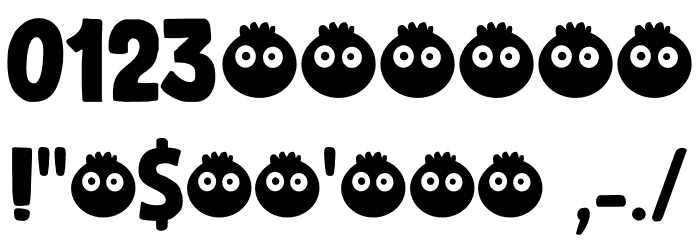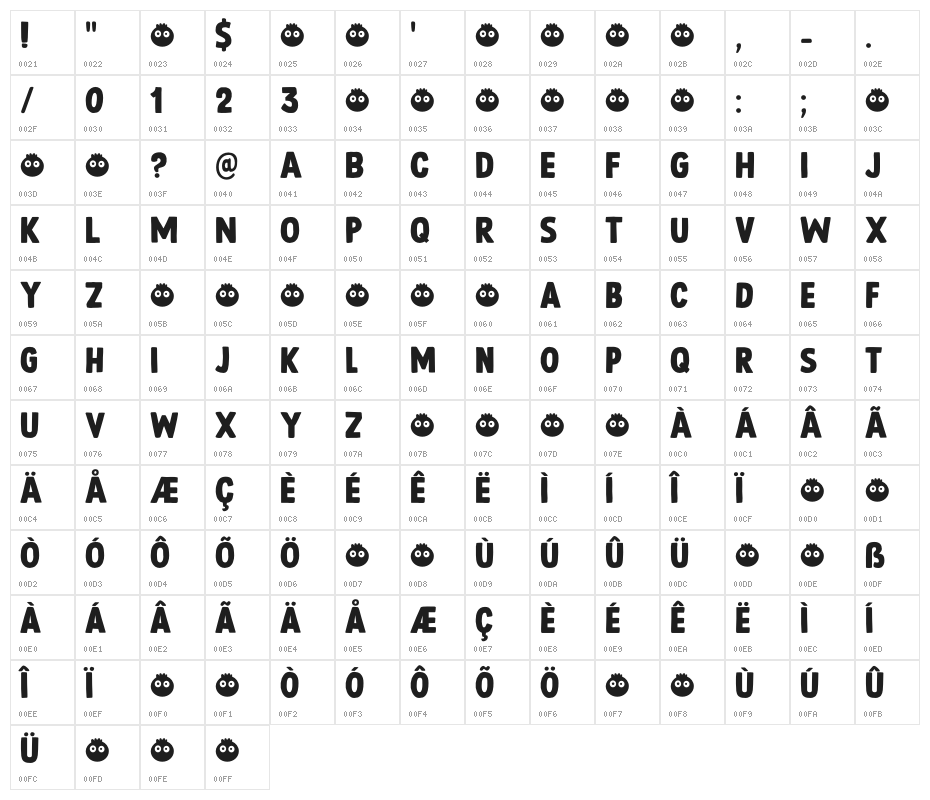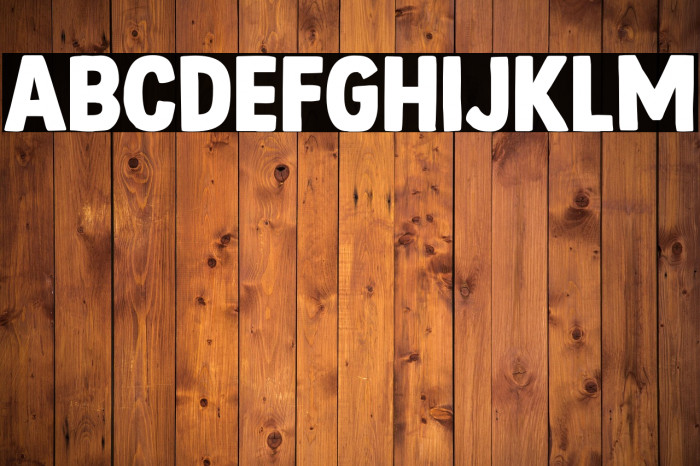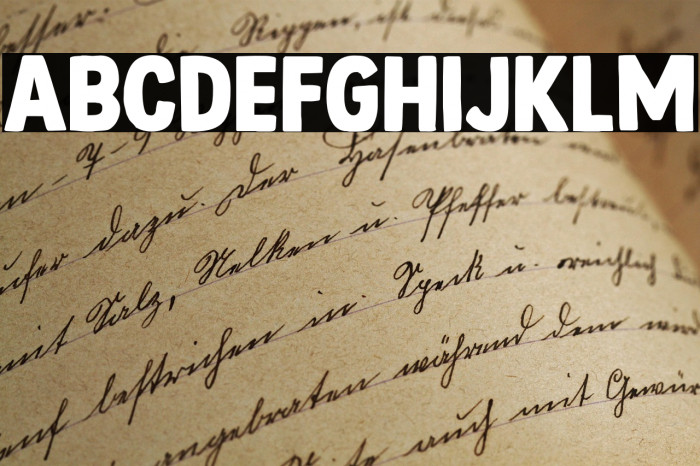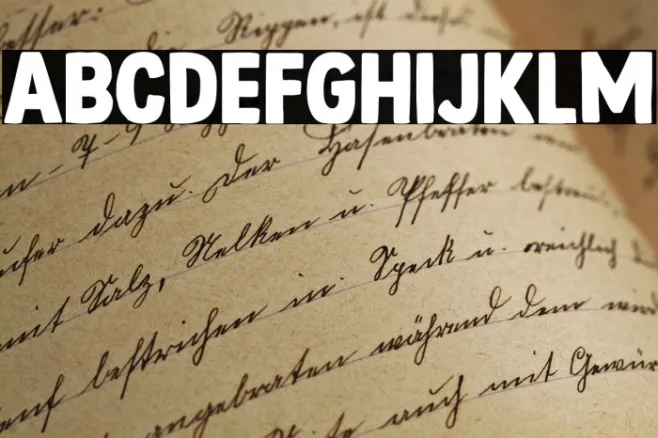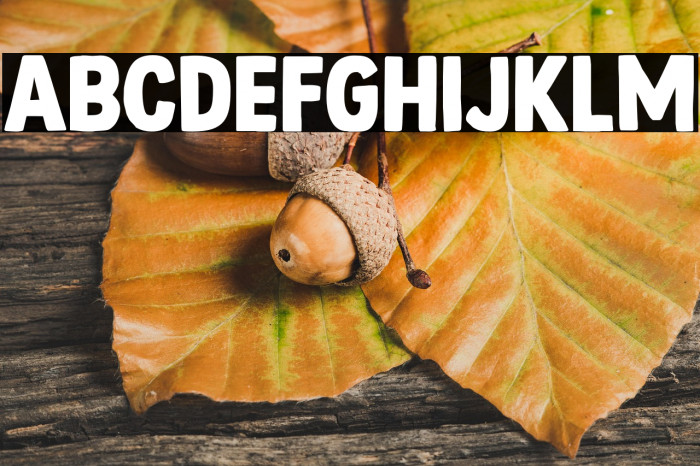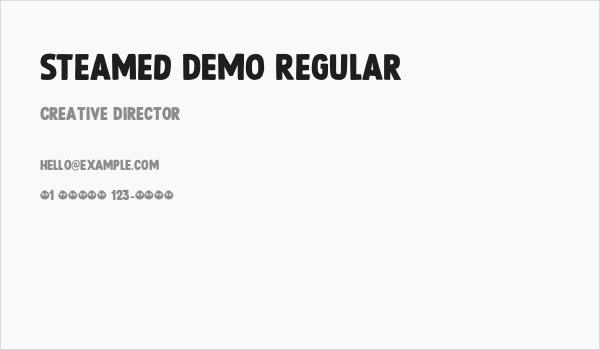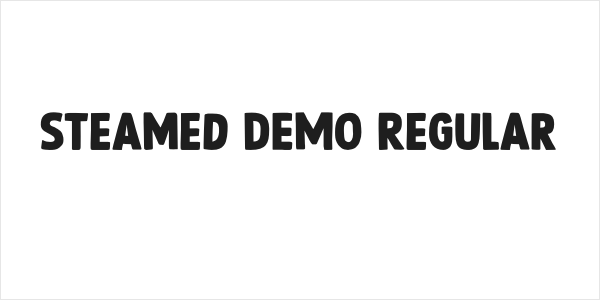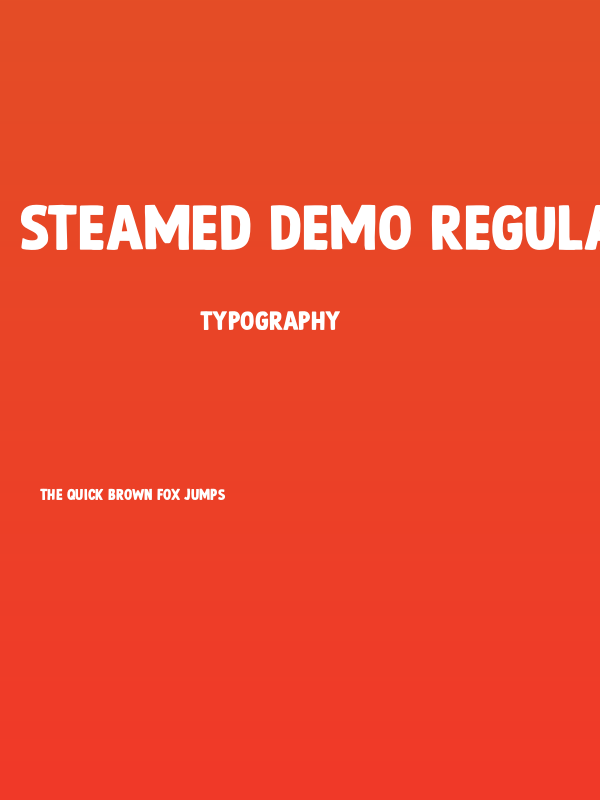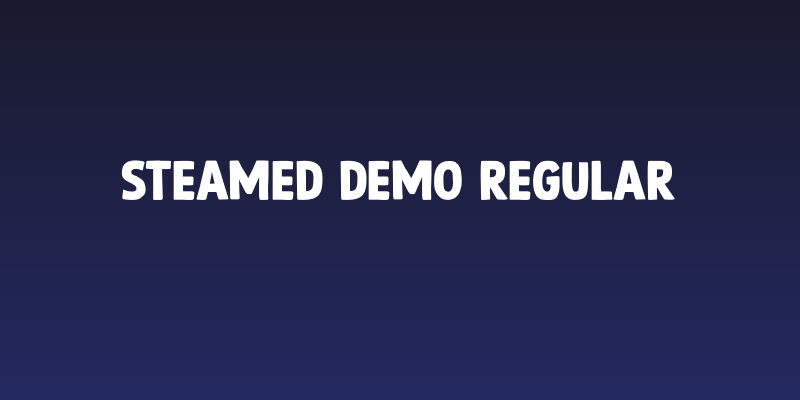
Steamed DEMO Regular Font
Steamed DEMO Regular Description
This playful and bold font features thick, rounded characters that convey a sense of fun and whimsy. The uppercase and lowercase letters maintain a consistent weight, creating a cohesive look across all text. The numbers and special characters are designed with the same playful style, making them perfect for creative projects. The font's unique character is further enhanced by the inclusion of quirky, cartoon-like symbols, adding an extra layer of personality. Its boldness ensures high readability, making it suitable for attention-grabbing headlines and designs.
| Overall Style | Playful, Fun, Quirky |
| Proposed Projects | Ideal for children's books, playful branding, posters, and creative advertising. |